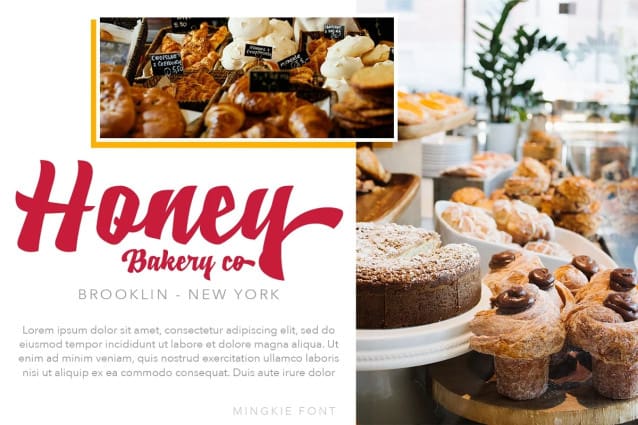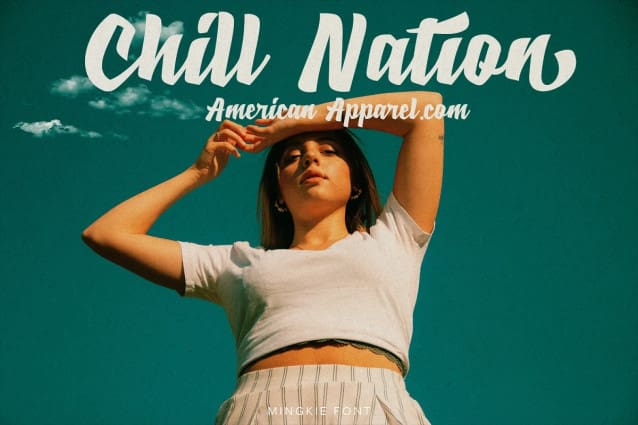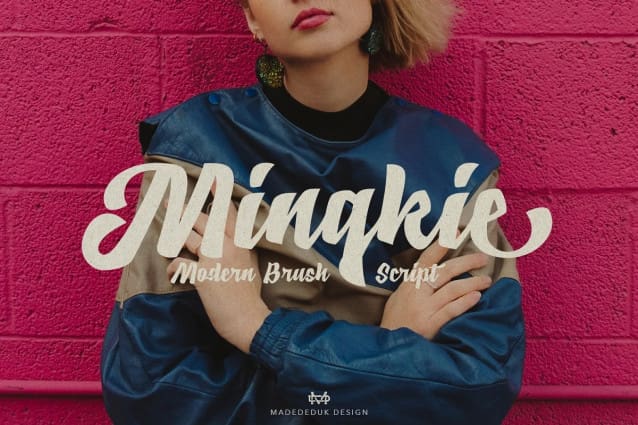
Mingkie Script Font
Mingkie Script Font, is a modern brush script inspired from retro font style. You can explore and combine creating rhythm for comfortable reading. Retro and refined use this font for any branding, product packaging, invitation, quotes, headline, label, poster, logo etc.